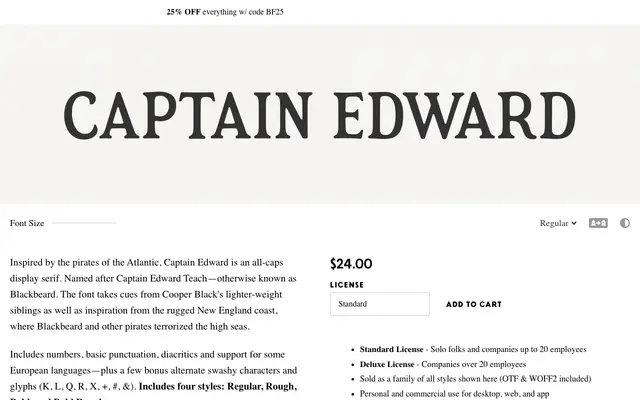
Captain Edward
An all-caps display serif with pirate-themed character, offering clean and distressed variants in two weights.
Named after the pirate Edward Teach, better known as Blackbeard, this all-caps display serif draws on Cooper Black's lighter-weight siblings and the rugged character of the New England coast. The family ships in four styles: Regular, Bold, and textured Rough variants of each, alongside a handful of swash alternates for K, L, Q, R, X and several punctuation marks. Coverage extends to Latin Extended for basic European language support.
An all-caps display serif with chunky, rounded letterforms drawing from Cooper Black's lighter-weight relatives, designed purely for headline and decorative use rather than text setting.